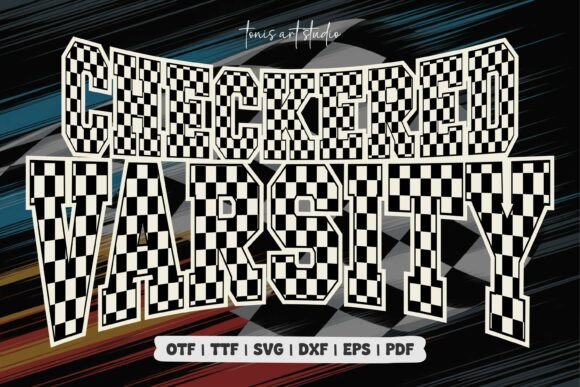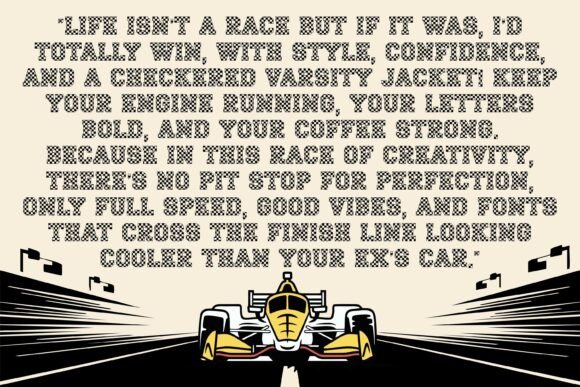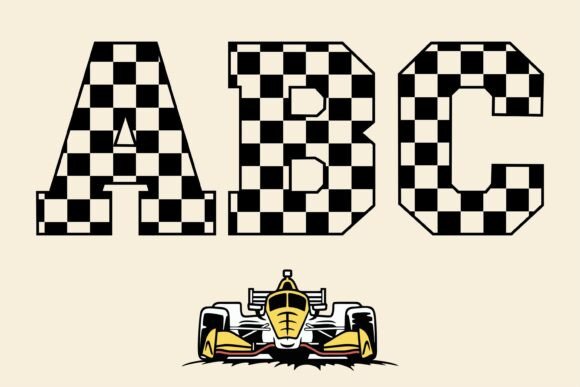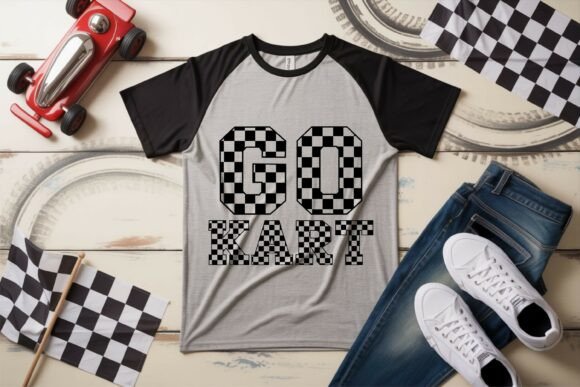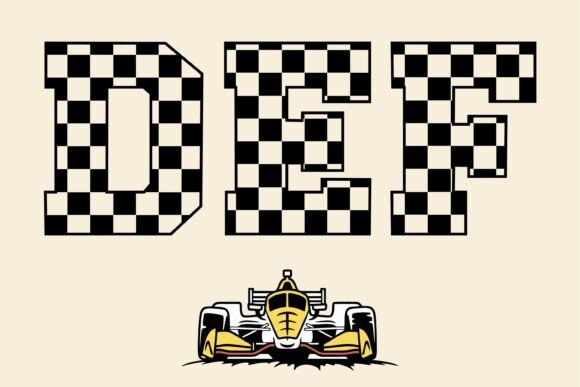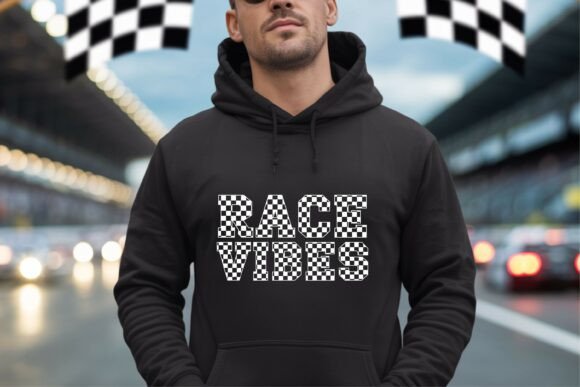
Unleash the Thrill of Speed and Style with Checkered Varsity Font
Immerse yourself into the thrilling world of speed and style with the Checkered Varsity Font. This assertive, vibrant typeface pays homage to both the electrifying spirit of racing and the timeless style of classic varsity. The font’s sharp outlines, vintage block letters, and distinctive black-and-white checks echo the dramatic visuals of a racing flag, injecting every project with a dose of adrenaline-fueled power and dynamism.
The Essence of Victorious Energy
The Checkered Varsity Font embodies the essence of victorious energy, making it perfect for speed enthusiasts, sporting fanatics, and designers who race to bring style and speed together. This font seamlessly intertwines the rugged varsity aesthetic with the distinct characteristics of motorsport design, creating a unique and captivating visual experience.
Undertaking a variety of projects such as designing logos for racing teams, crafting sports apparel, event poster art, decaling cars, or creating unique Cricut crafts? The Checkered Varsity Font facilitates an absolute winning streak for your designs. Its daring structure and checked texture add a dynamic touch to any project, making it a versatile and valuable addition to your design arsenal.
Key Features of Checkered Varsity Font
• Sharp Outlines: The font’s sharp outlines give it a bold and edgy look, perfect for making a statement in your designs.
• Vintage Block Letters: The vintage block letters evoke a sense of nostalgia and classic style, adding a touch of timelessness to your projects.
• Distinctive Black-and-White Checks: The iconic black-and-white checks are a nod to the racing flag, injecting a dose of adrenaline-fueled power and dynamism into your designs.
• Seamless Integration: The font seamlessly integrates with various design projects, making it easy to incorporate into your workflow.
The Checkered Varsity Font is perfect for designers and crafters who want to add a touch of speed and style to their projects. Whether you’re working on a logo design, crafting sports apparel, or creating unique Cricut crafts, this font is sure to make your designs stand out.
Tips for Using Checkered Varsity Font
• Pair with Bold Colors: Pair the Checkered Varsity Font with bold colors to amplify its impact and create a striking visual experience.
• Experiment with Different Sizes: Experiment with different font sizes to create visual hierarchy and add emphasis to your designs.
• Combine with Other Fonts: Combine the Checkered Varsity Font with other fonts to create a unique and captivating visual experience.
The Checkered Varsity Font is a powerful and dynamic typeface that embodies the essence of speed and style. With its sharp outlines, vintage block letters, and distinctive black-and-white checks, this font is perfect for designers and crafters who want to add a touch of adrenaline-fueled power and dynamism to their projects. Whether you’re working on a logo design, crafting sports apparel, or creating unique Cricut crafts, the Checkered Varsity Font is sure to facilitate an absolute winning streak for your designs.
Get Ready to Shift Your Designs into High Gear!